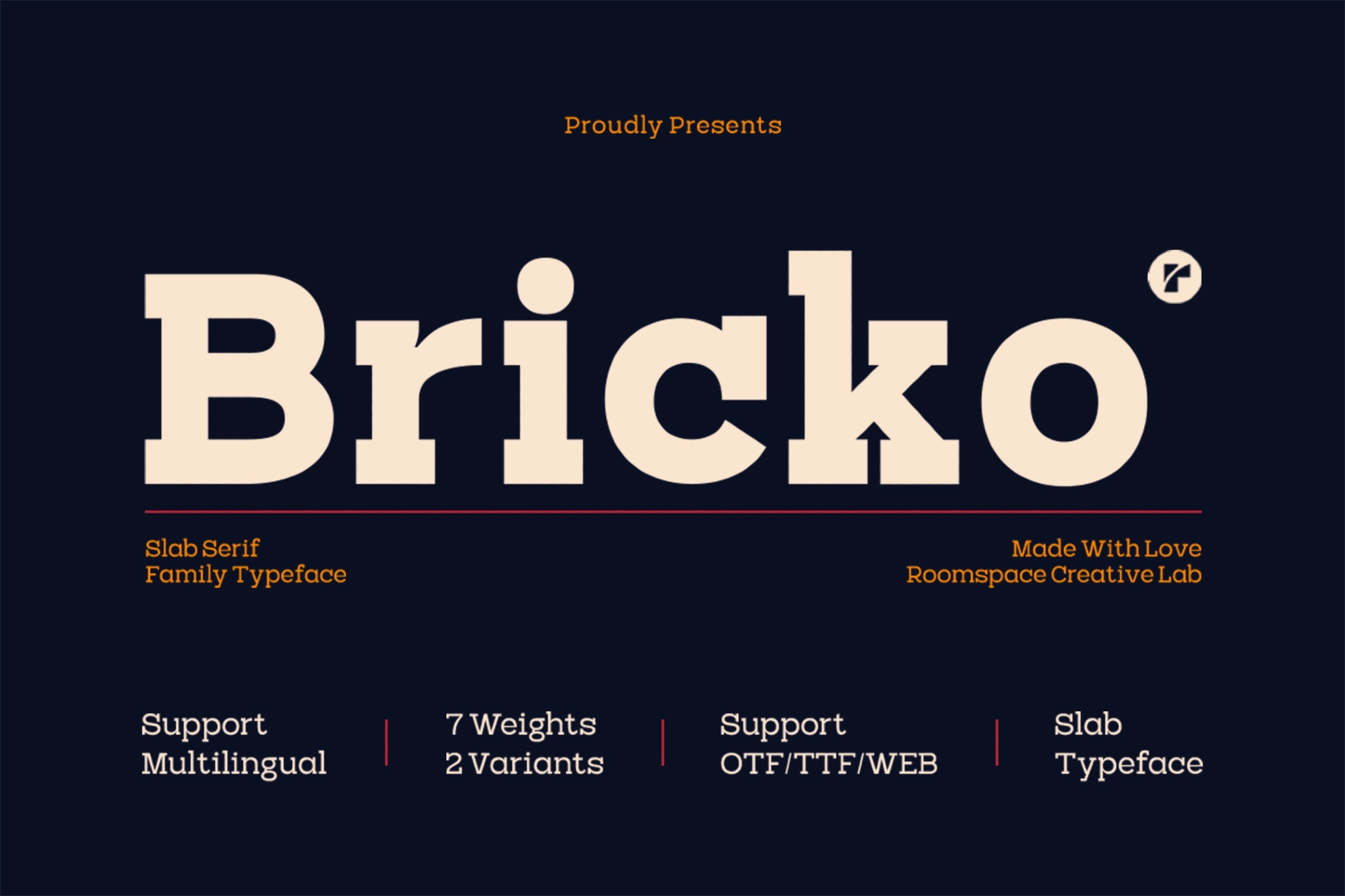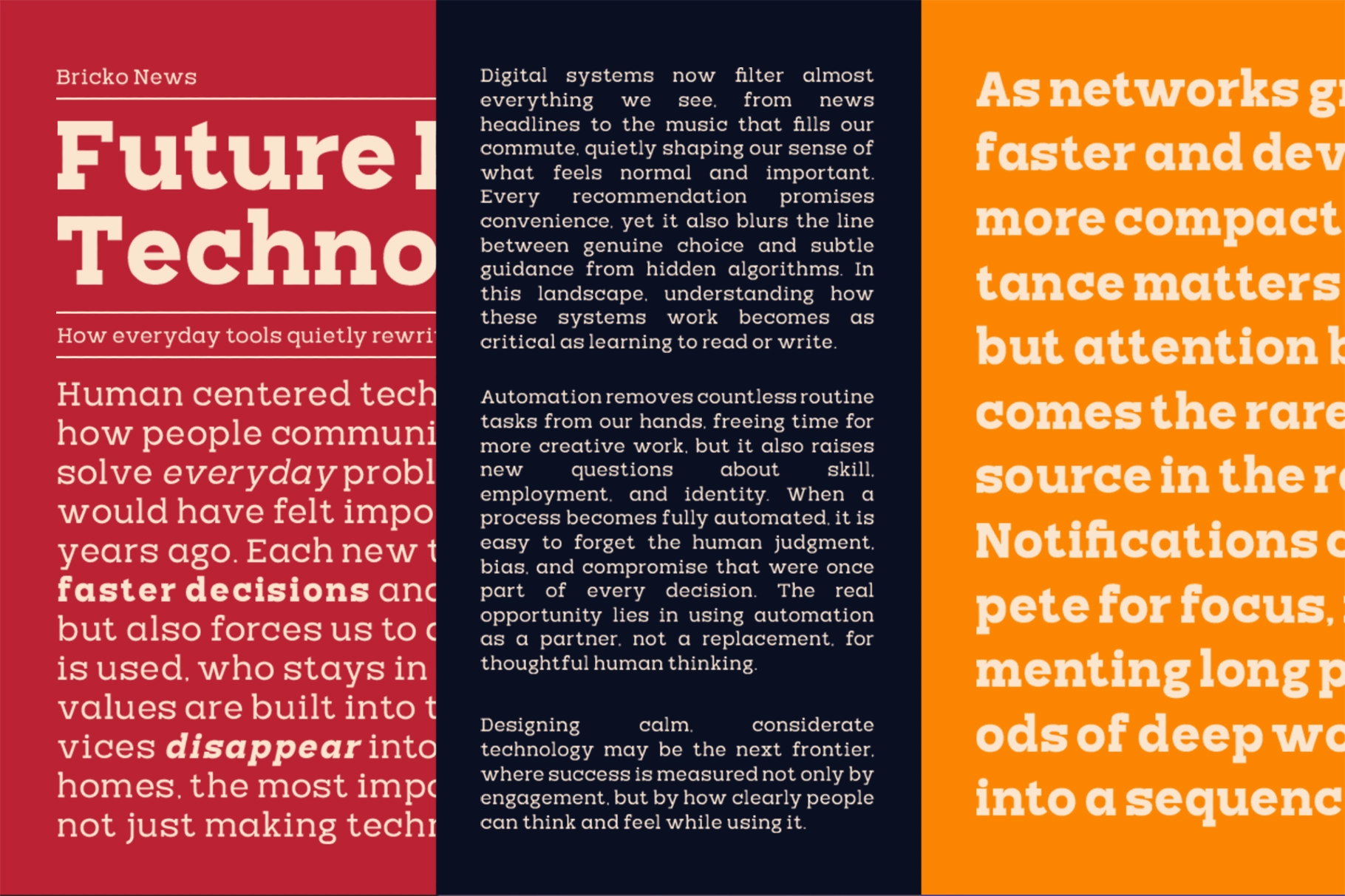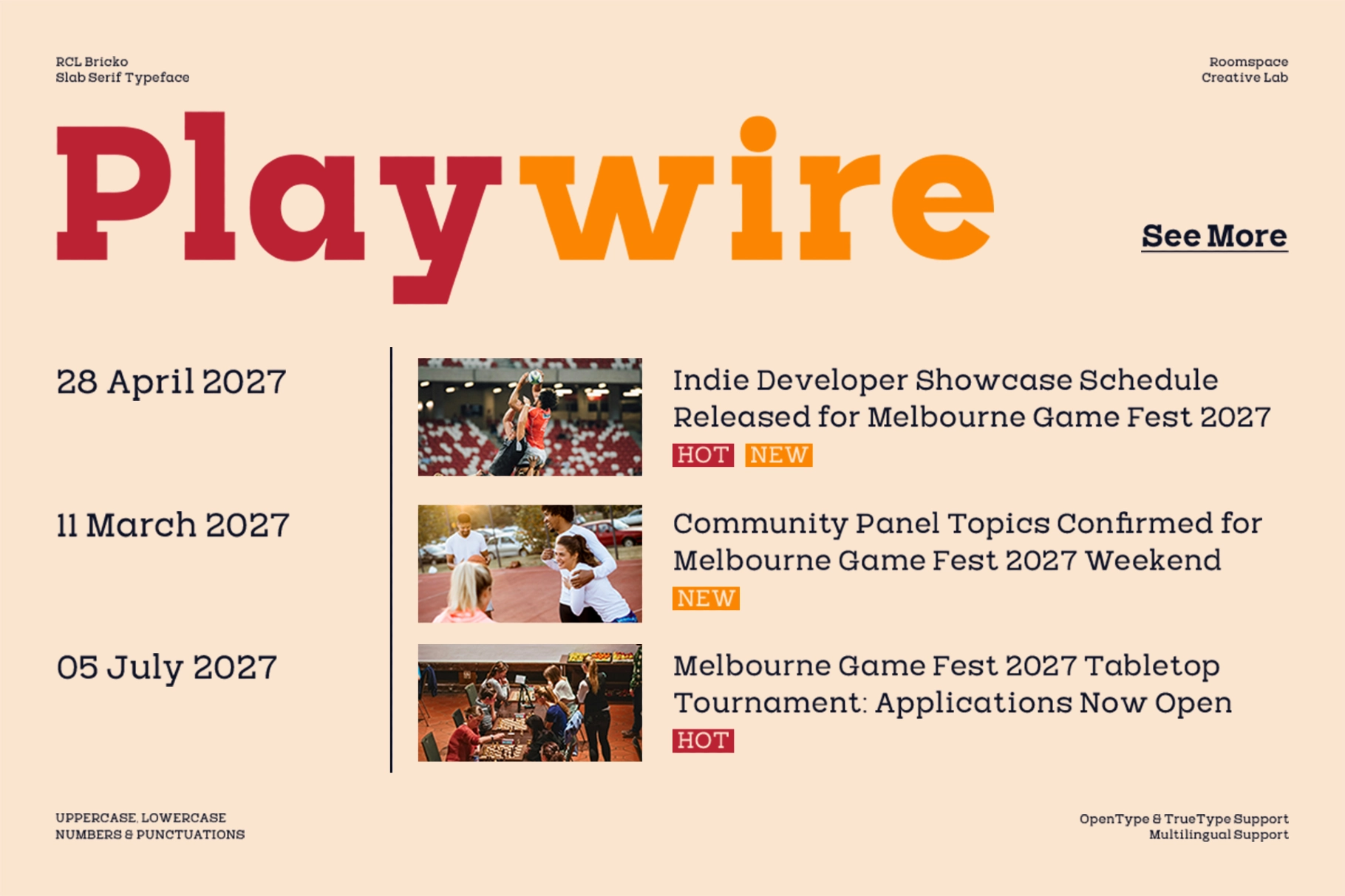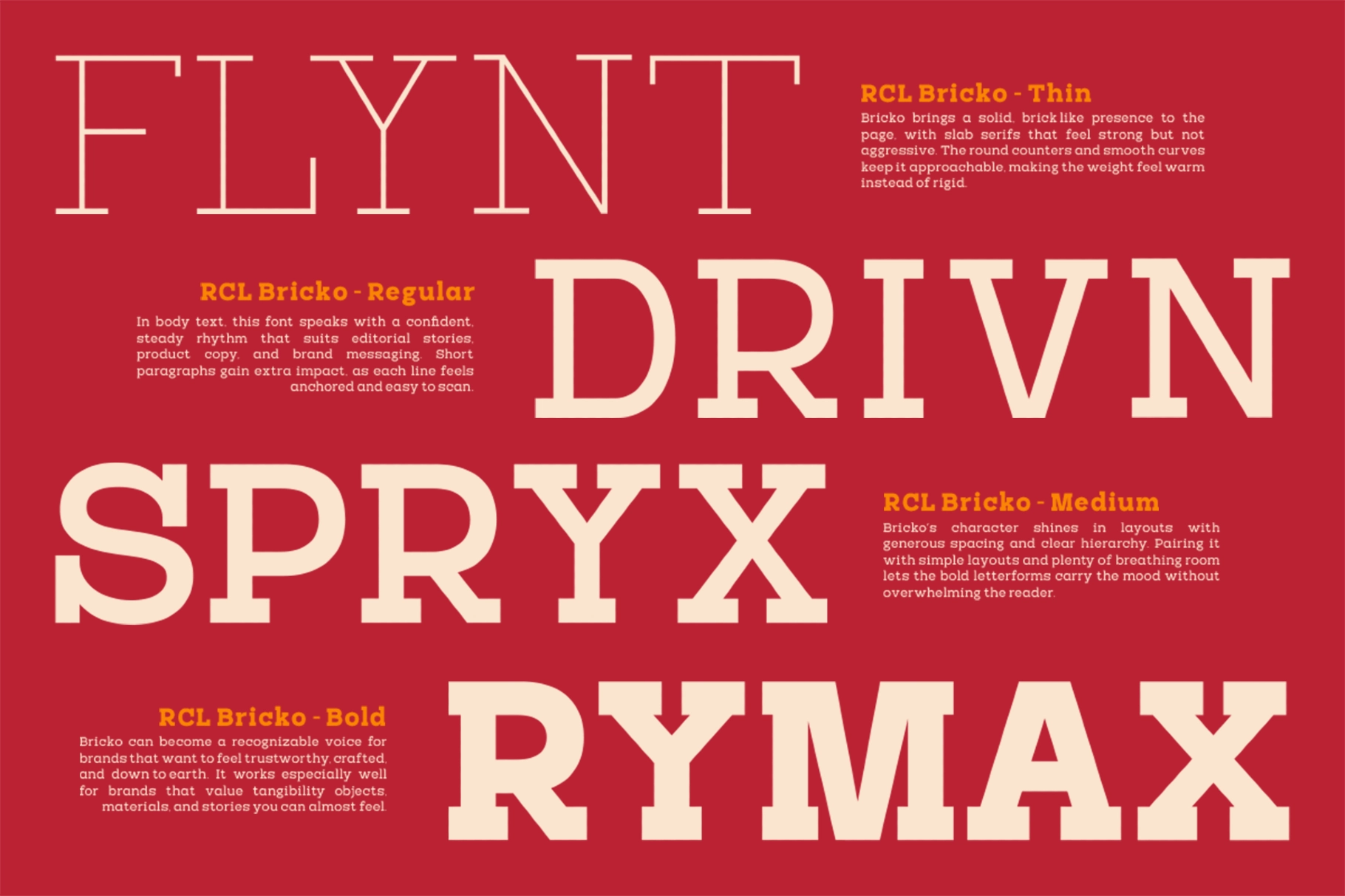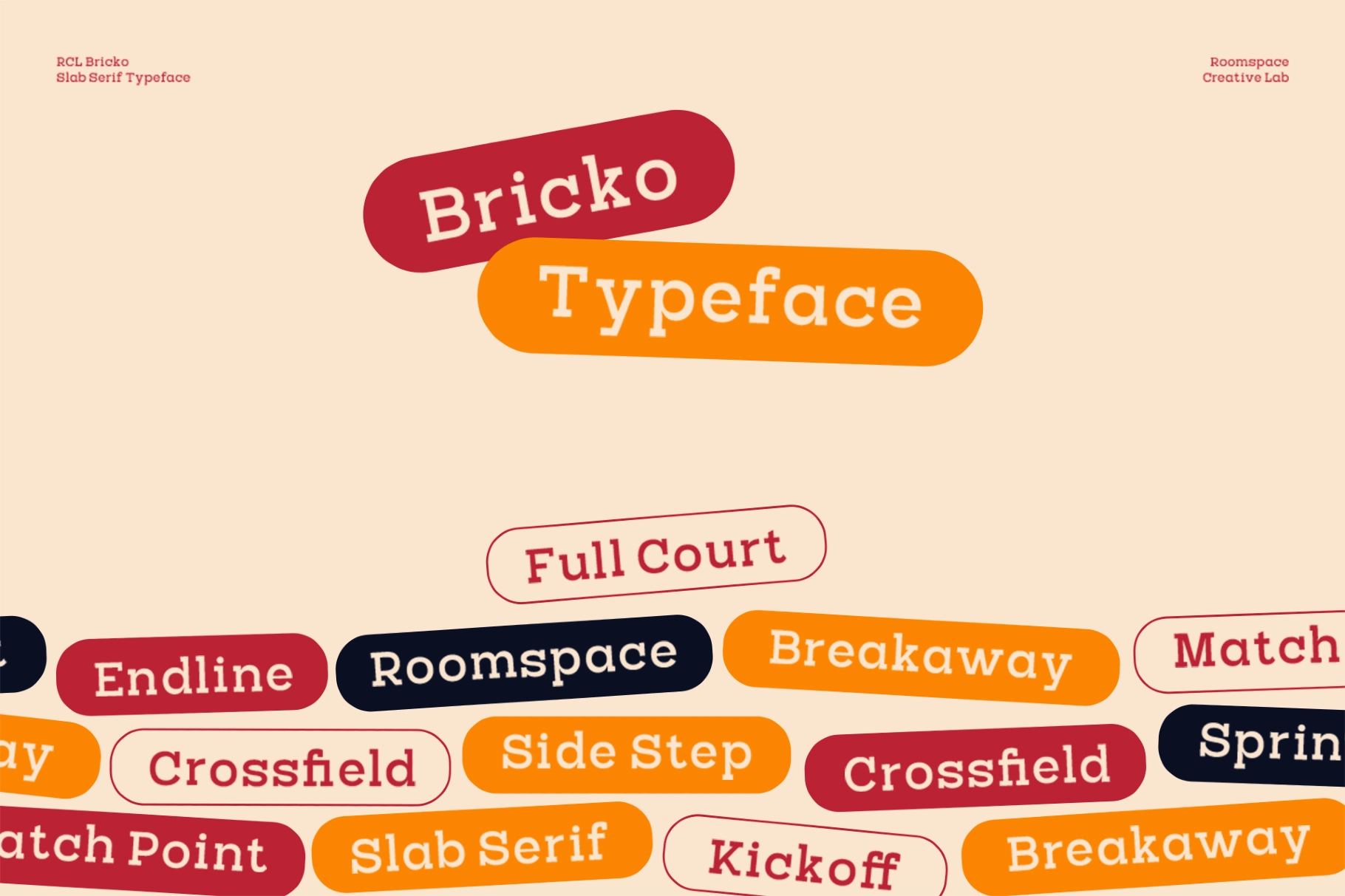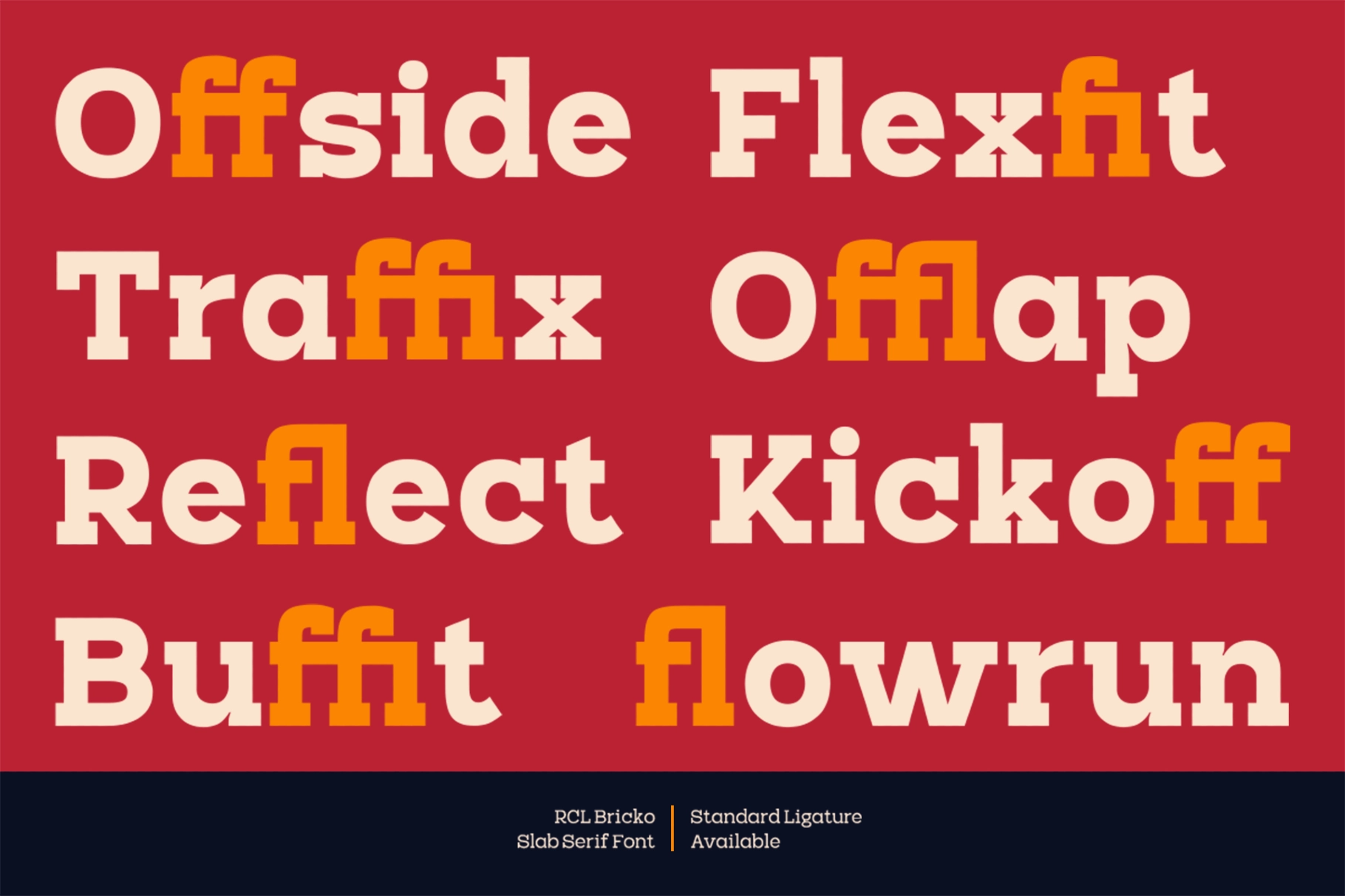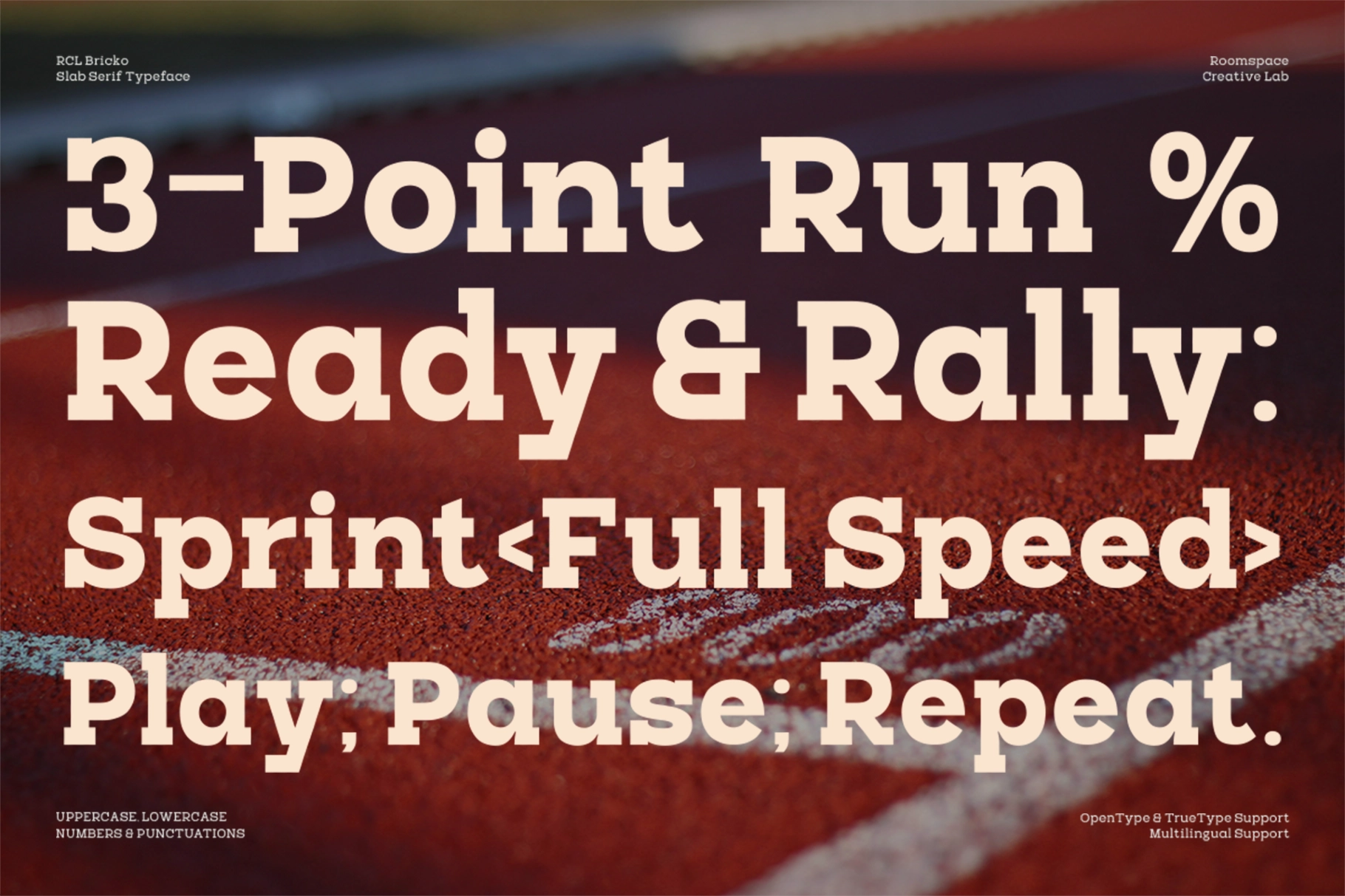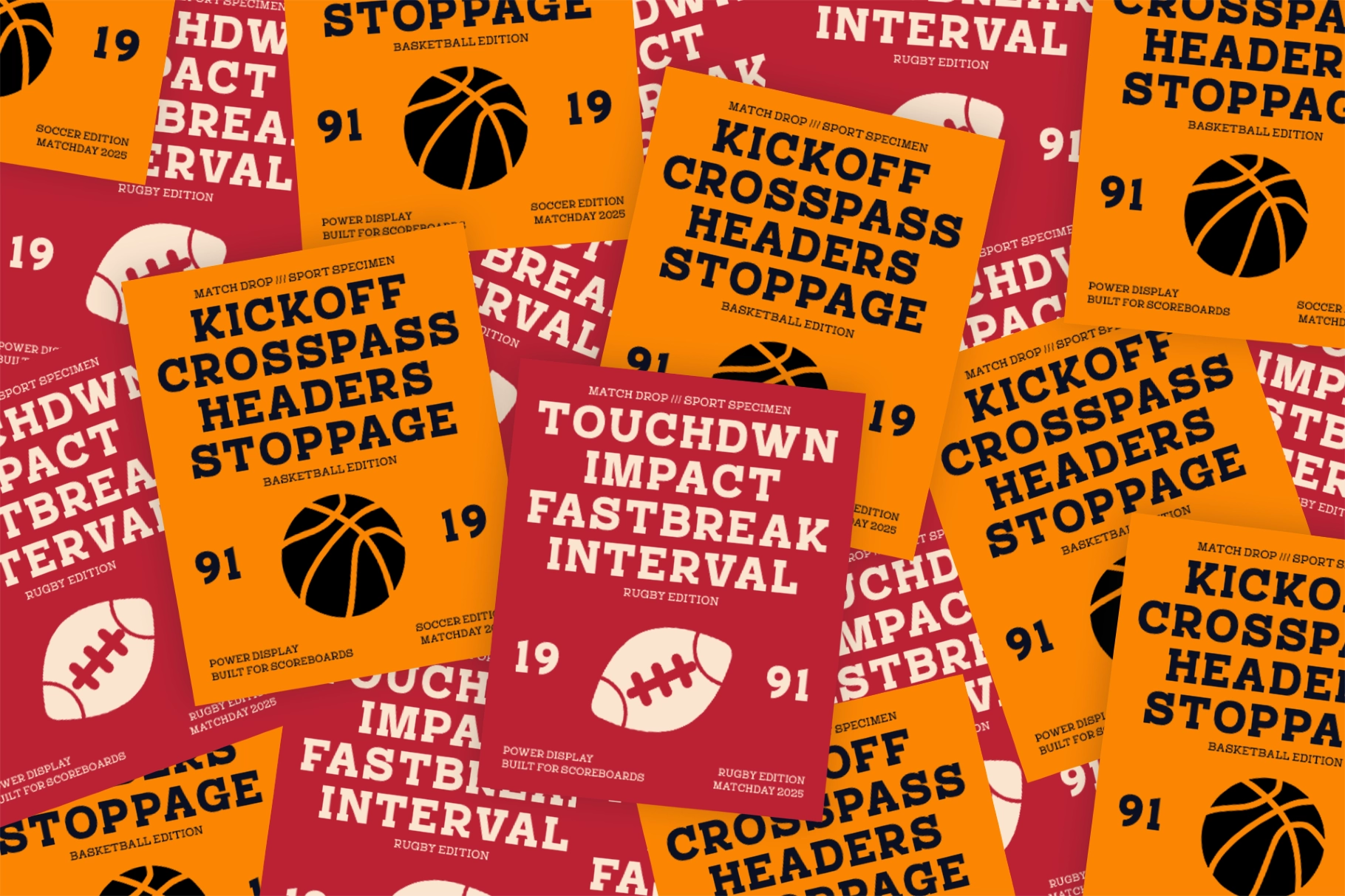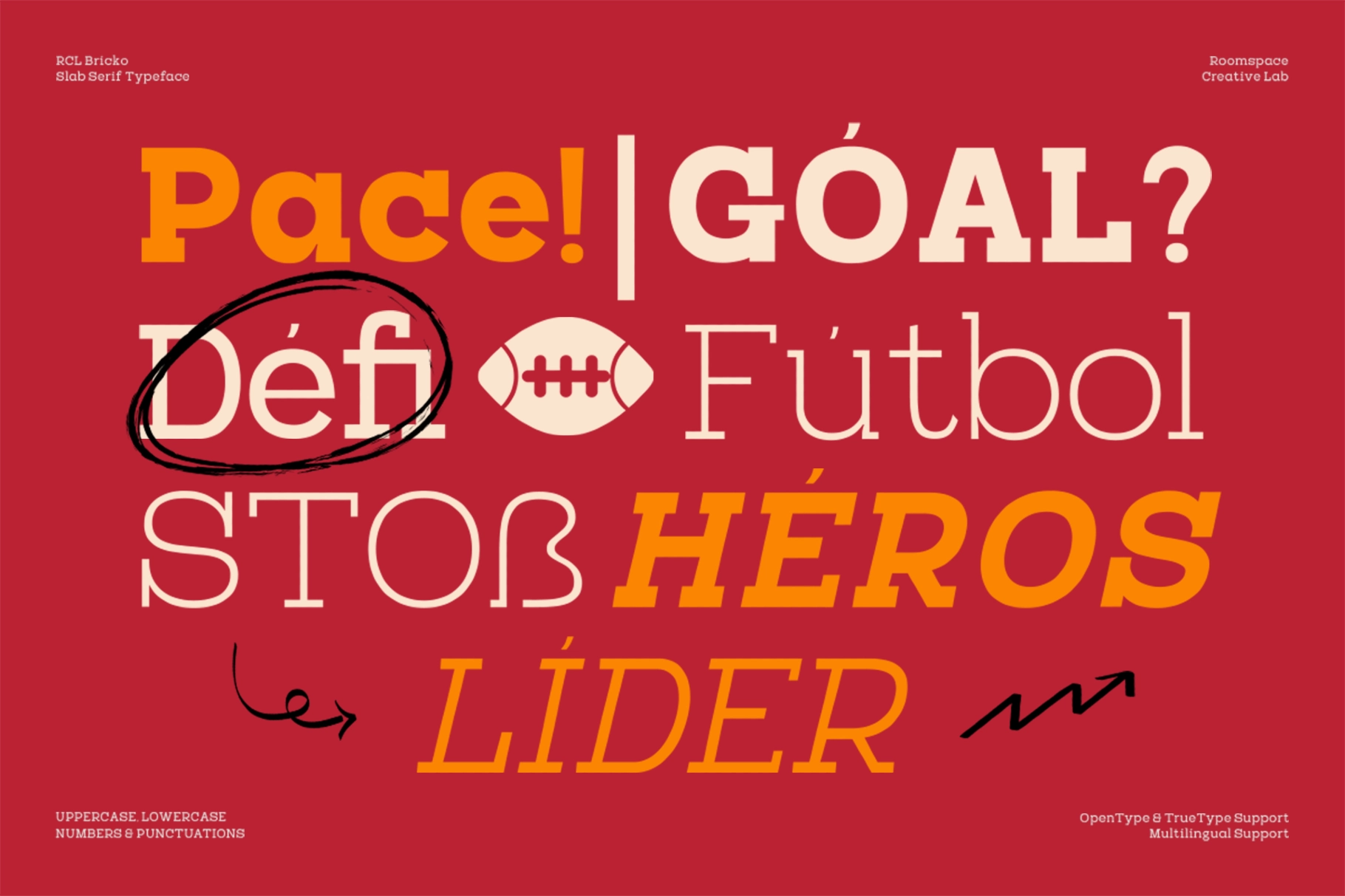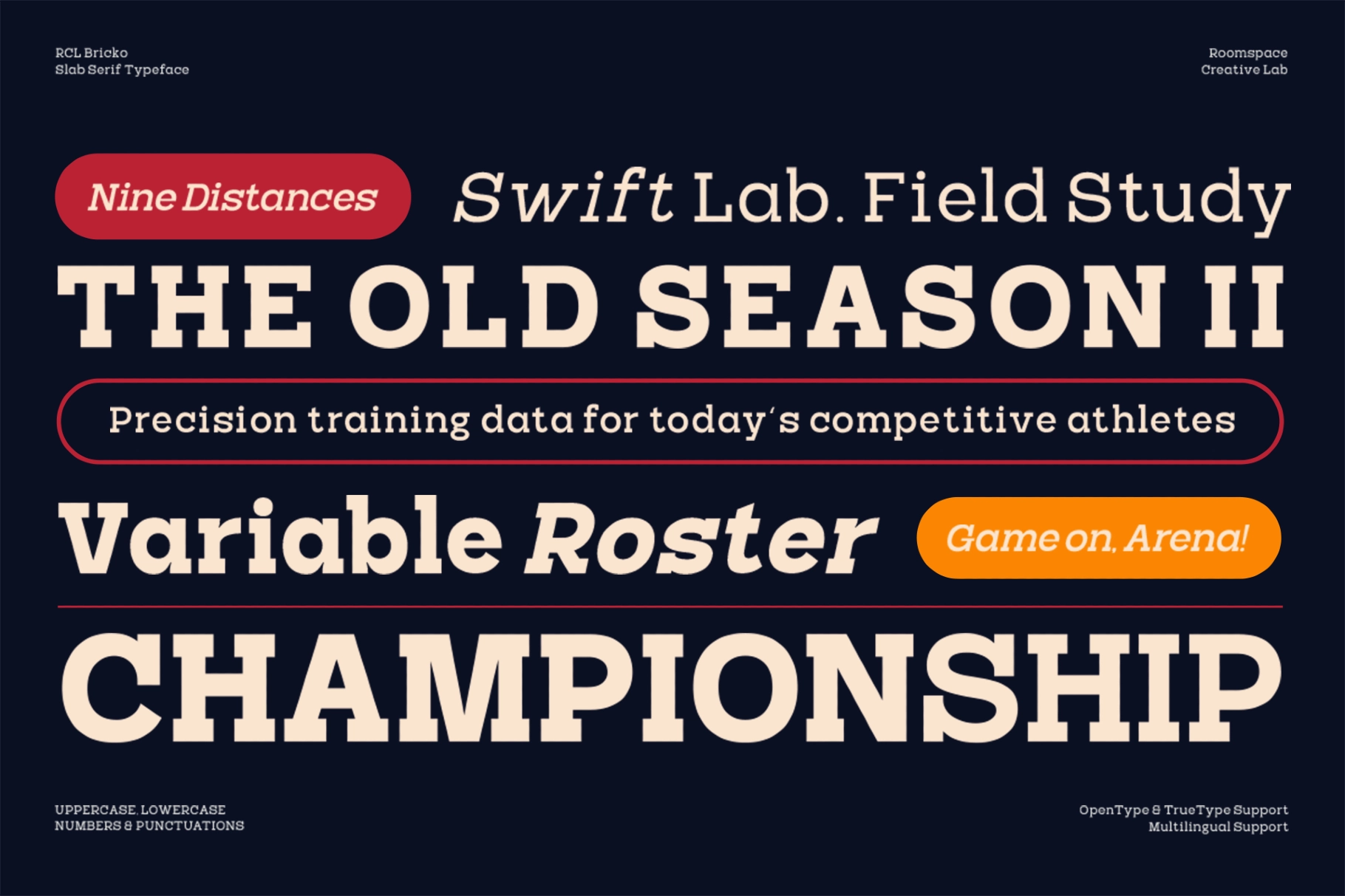
RCL Bricko – Bold Modern Slab Serif Font
This bold slab serif family has a sturdy build, rounded counters, and a confident athletic edge. Its blocky serifs and broad proportions give headlines a grounded voice, while the lighter cuts add cleaner editorial rhythm for smaller text and structured layouts.
Bricko is made for sports branding, team graphics, varsity posters, editorial headlines, logo design, packaging, apparel graphics, event campaigns, product labels, website headers, social media banners, signage, and business identity systems. It has the kind of solid presence that looks ready for kickoff, boardroom pitch, or both.
- 7 weights: Thin - Bold
- 2 Styles: Regular, Italic
- Standard ligatures